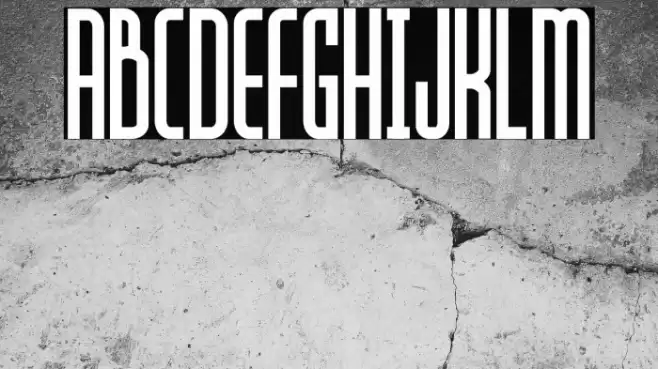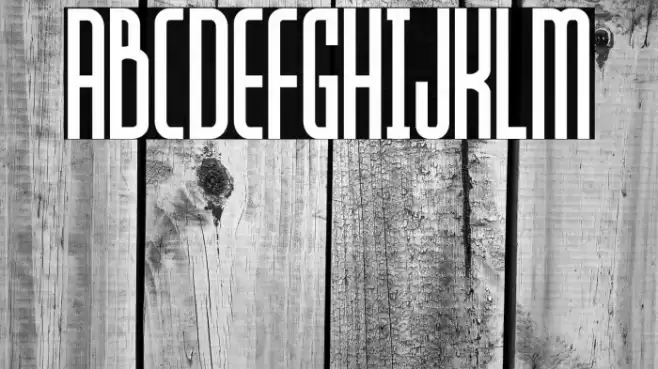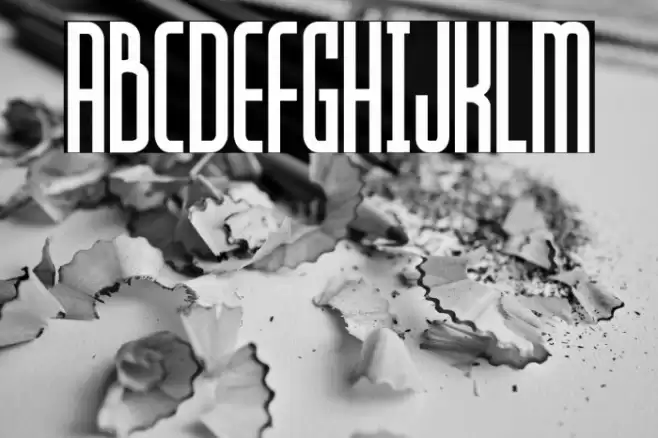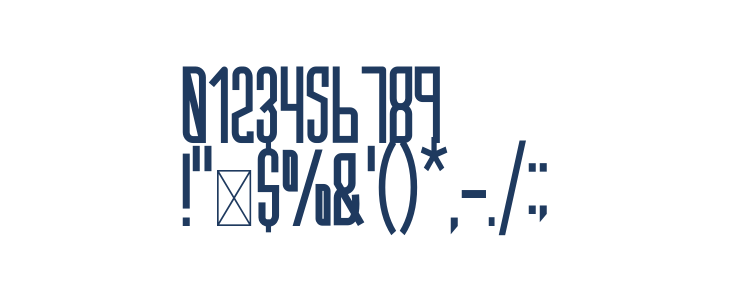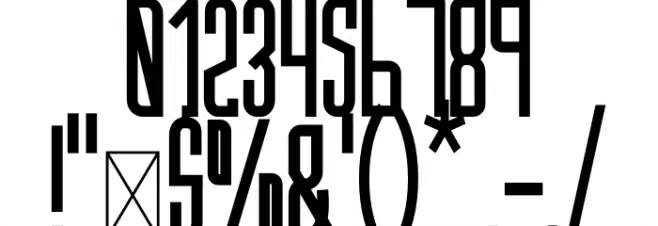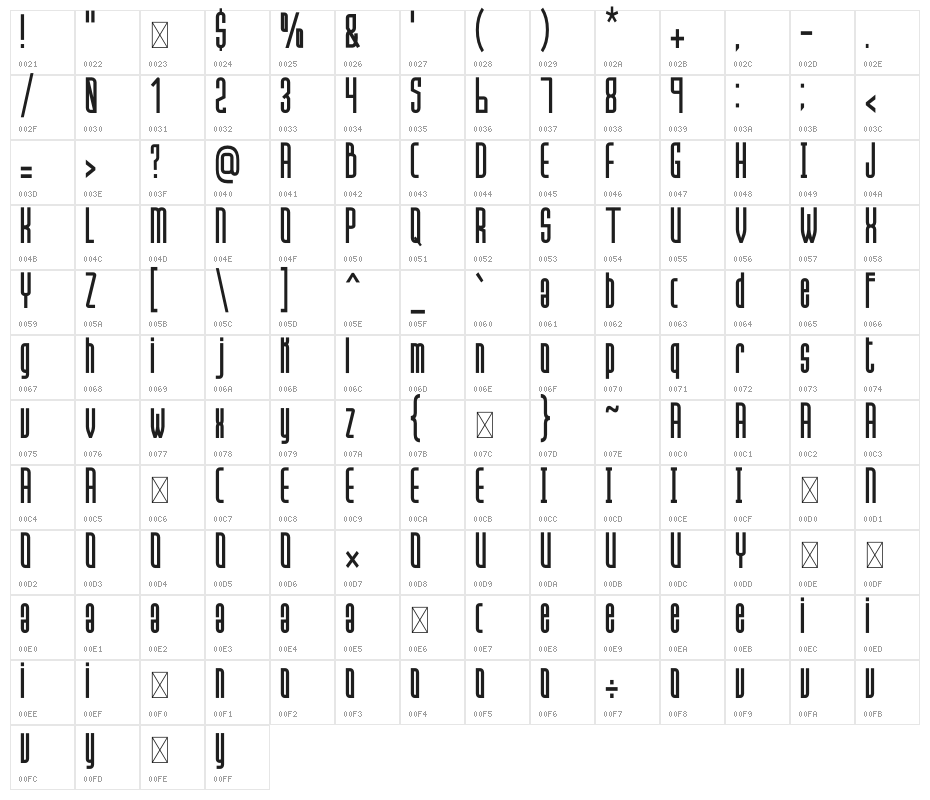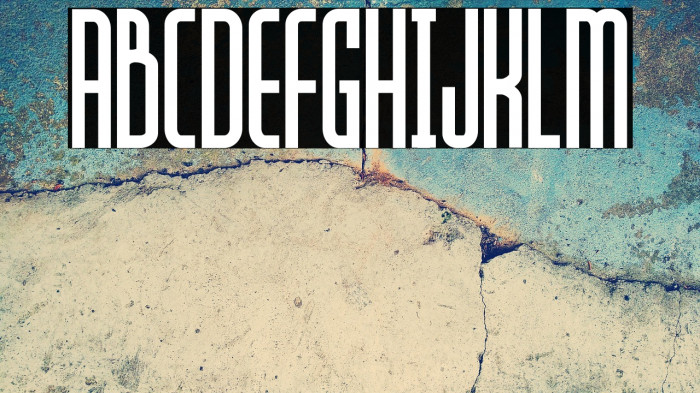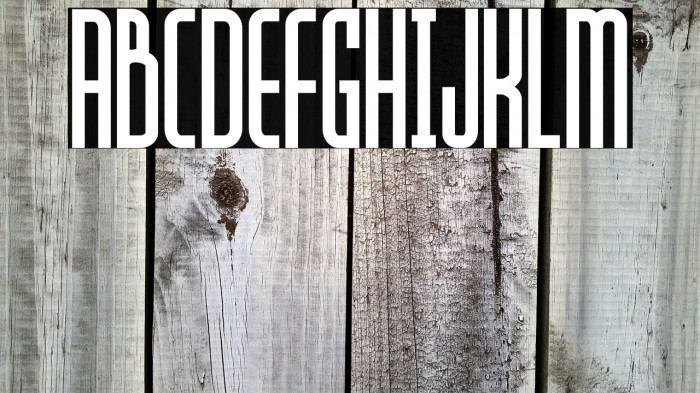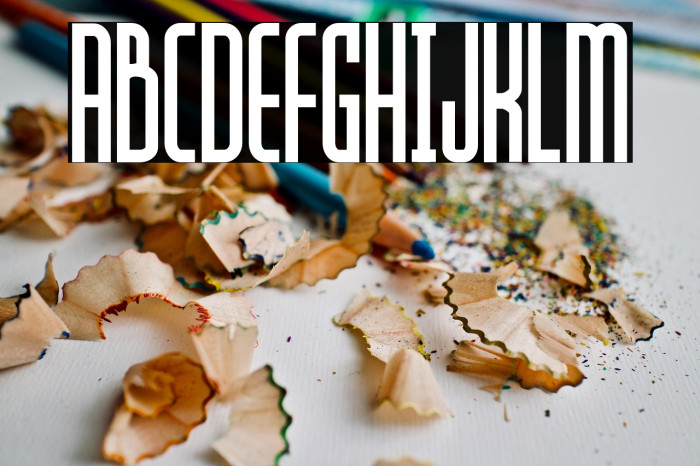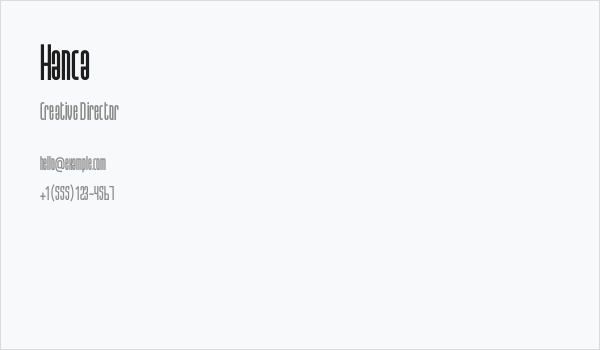
Hanca Font
Hanca Description
This font features a tall, narrow design with a distinctly modern and geometric aesthetic. The characters are elongated, giving them a sleek and sophisticated appearance. The uppercase and lowercase letters maintain a consistent height, creating a uniform look across the text. The numbers and special characters follow the same style, ensuring cohesion throughout. The font's clean lines and minimalistic design make it suitable for contemporary projects that require a bold statement. Its unique structure is eye-catching, making it ideal for headlines and display purposes.
A tall, narrow, and modern geometric font with a sleek appearance from Uncategorized fonts.
- Proposed Projects: Ideal for modern branding, posters, headlines, and editorial design.
- Character Spacing: Tight